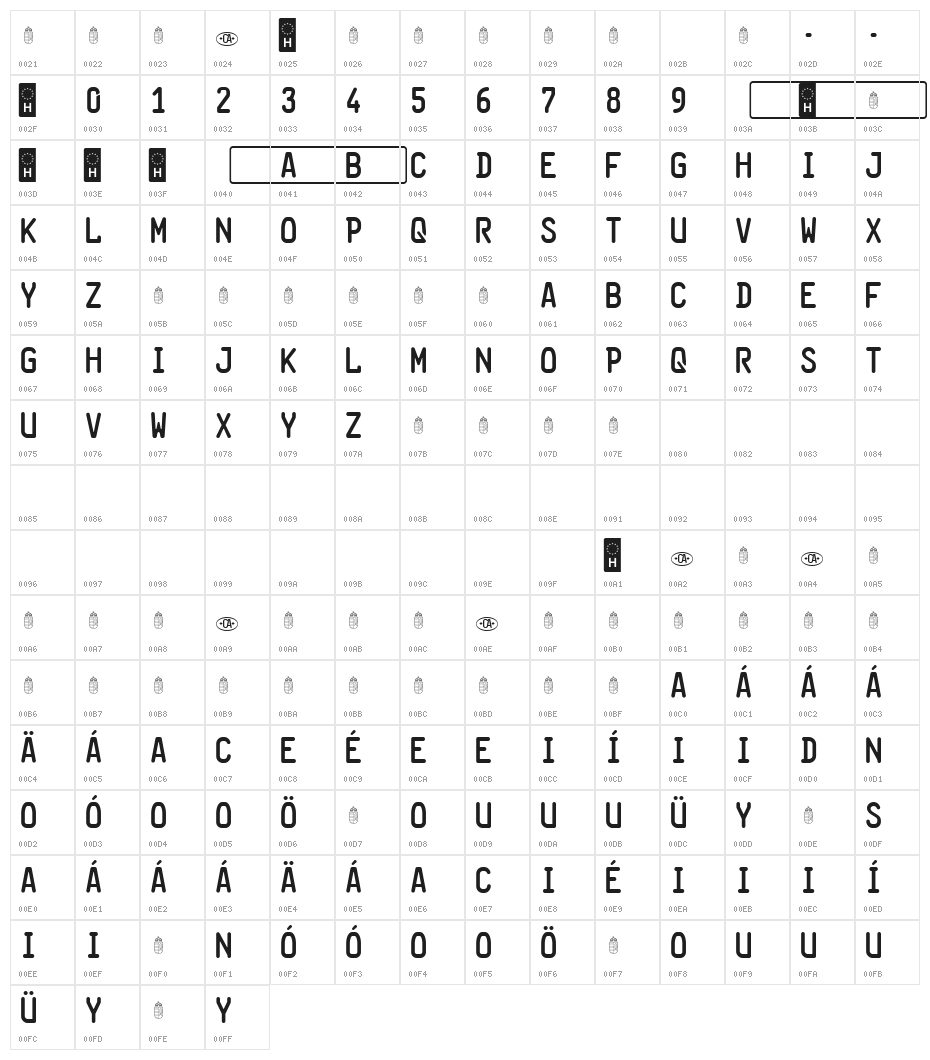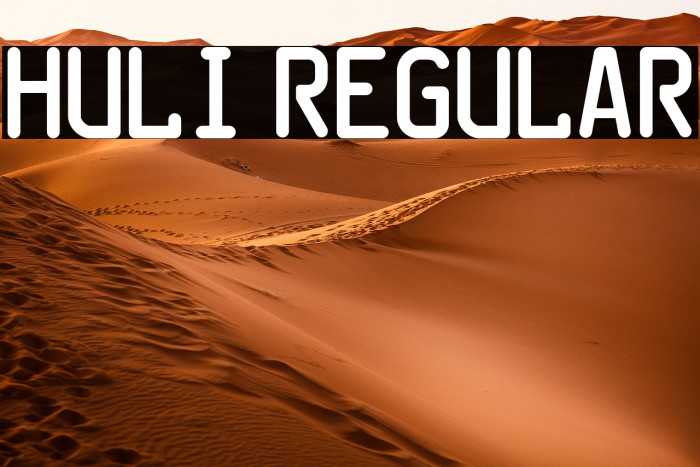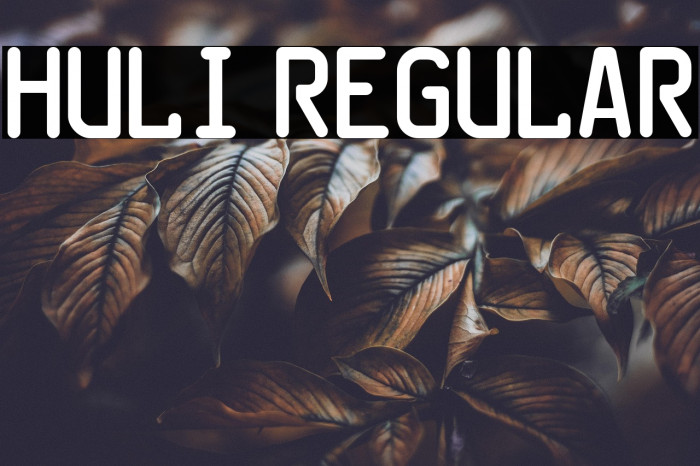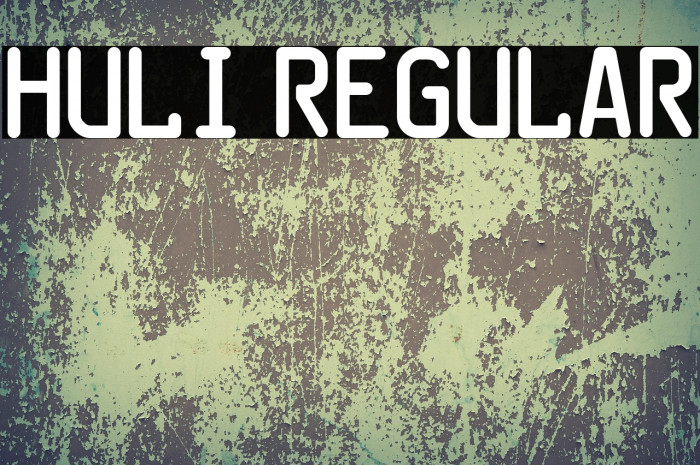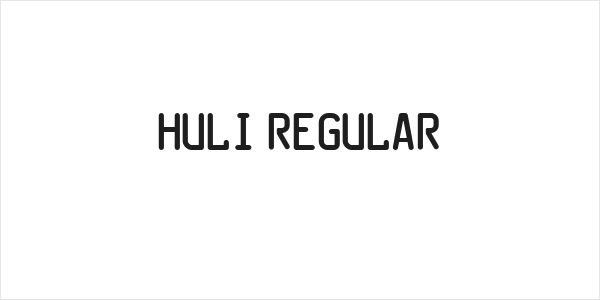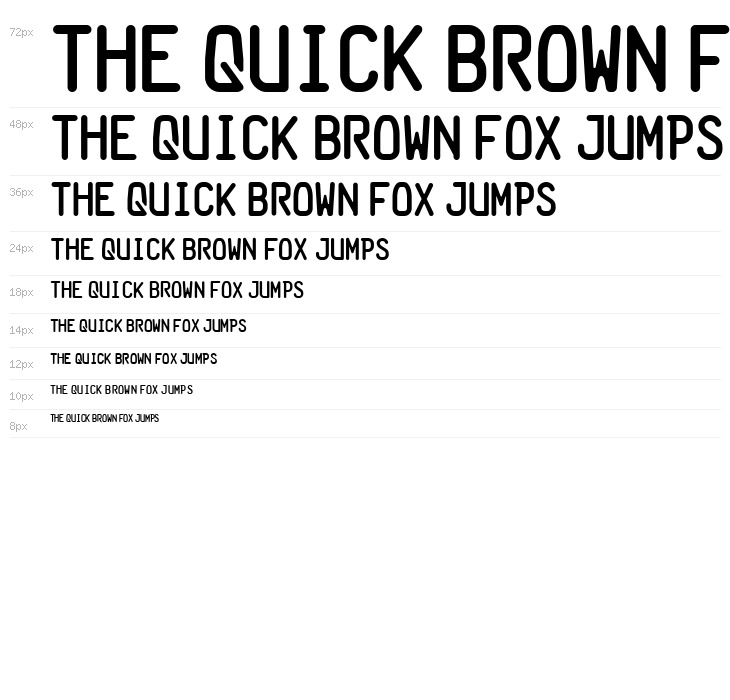
HuLi Regular Font
HuLi Regular Description
This font features a modern and clean design with rounded edges that give it a friendly and approachable appearance. The characters are well-proportioned, with a consistent stroke width that maintains readability across different sizes. The uppercase letters are bold and assertive, while the lowercase letters retain a similar style, ensuring uniformity. Numbers are clear and distinct, making them easily distinguishable. The special characters are designed to match the overall aesthetic, providing a cohesive look. This font is versatile, suitable for both digital and print media.
| Use Case | Headlines, Body text, Logos |
| Proposed Projects | Ideal for branding, signage, digital interfaces, and print materials where a modern and friendly look is desired. |